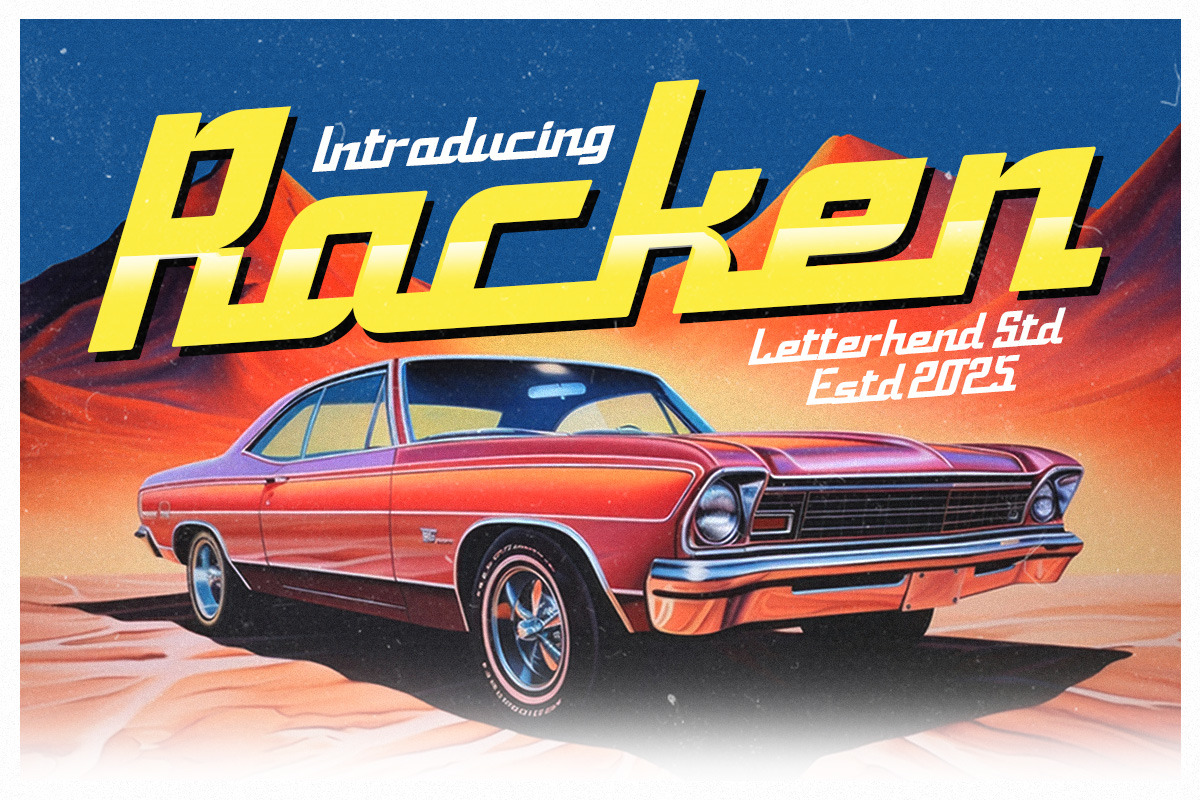
Racken Retro Futurism Display Font
Racken is a bold retro display font that captures the thrilling energy of vintage muscle cars and 80s speed aesthetics. With its sharp edges, slanted form, and dynamic letter shapes, Racken brings a sense of motion and power to every design. Perfect for projects that needs a bold and nostalgic punch.